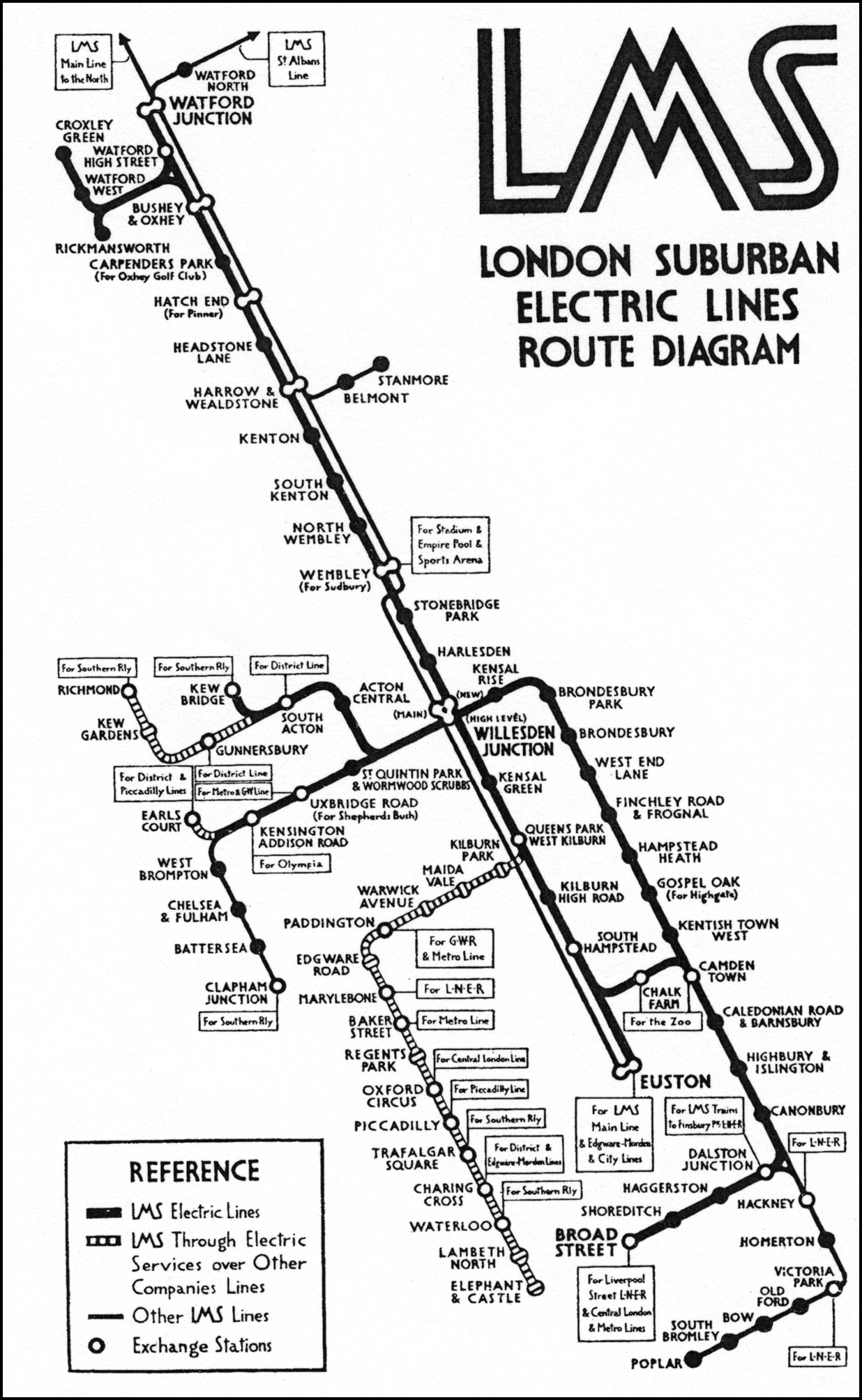
Turning to the lighter side of map design, I have always been intrigued by what-ifs. What if an unpublished sketch had been put into production? What if a classic design was still in use today? Sometimes I create something purely for artistic effect – what if Frank Lloyd Wright had designed
a map for the Chicago El? These flights of fancy all have one thing in common: getting the lettering
right is crucial.
Often, there is a suitable digital font available off-the-shelf. Railway companies were pioneers of corporate identity and it is not surprising that they chose (or even created) important typefaces to letter their maps. The London & North Eastern Railway famously adopted Gill Sans for their publicity. Less well-known, the operator of the S-Bahn network in Berlin was forced to adopt Drescher Grotesk owing to there being no copies of Futura available for use in East Germany post World War II.
If an off-the-shelf font is not available, sometimes there will be a close match. Lettering has always been difficult to copyright and popular typefaces attracted imitations. If a few letterforms (or glyphs) are not quite right then redesigned ones can be substituted to give the desired authentic effect. For example, lettering on the classic Viennese Stadtbahn maps seemed to have its basis in the German typeface Erbar but with various glyphs modified to tone down the quirkiness of the original. For my modern update of the map it was easy to take an off-the-shelf version of Erbar and substitute letters as needed.
Very occasionally, I might undertake a project for which there are no suitable off-the-shelf computer fonts available and then I research and create my own lettering. If I need to create an actual computer font then I use Type Tool, which has all the basic functionality necessary.
George Dow is one of the lesser known pioneers of schematic map design: predating Henry Beck, and
much more creative. Unfortunately, no known print examples of his splendid 1935 LMS London suburban
map are known to exist, only a monochrome image
from a contemporary railway magazine. This map
was one of my early attempts at a digital recreation (2009). Lines are fairly easy to re-draw as vector
graphics but hand-lettering presents a conundrum.
Hand lettering is inherently variable. I could have tried
to trace each individual letter to impersonate this but,
as I have argued elsewhere, this would look wrong in the context of the perfect vector-graphics railway lines and stations – every angle correct, every stroke width the
same, every station blob the same size. In any case, what
I was trying to do was show this marvellous design to the
modern world – people accustomed to high quality print reproduction. It is possible that
the quaintness of obsolete techniques and technology might distract from appreciating the underlying design. Therefore, I decided to analyse the letters themselves, identify the preferred way in which each was constructed, and turn these into computer font outlines.
This was a rather ambitious project for a first font. To impersonate all the lettering, I needed three different weights plus lower case letters. Fortunately, this hand lettering was definitely mono-stroke (all stroke widths identical within letters) and there was only one missing letter to guess, the Z. In the process I learnt a lot about
the optics of font design, and the delights of using font creation software to set up kerning pairs.
This is definitely a case in which the layout of the lines, at their jaunty angle, and the distinct of-its-time lettering, complement each other exactly. Unfortunately, too much so. I have experimented with Dow Sans in other contexts and it never looks quite right. Just right for this map, but out of place everywhere else. This is an intriguing demonstration of the lost art of hand lettering, adjusting the style perfectly to complement the exact context in which it is set.
I call the 1930s the Decade of Diagrams. All round the world, the ethos of Modernism was providing a foundation for maps to become schematised. Often, this corresponded with network modernisation, such as electrification, and this appears to be the driving force behind Copenhagen’s new suburban railways diagram that was introduced in 1934.
This map caught my eye not just because
it was an early schematisation. K. T. Seest,
chief architect for Danish State Railways
(DSB), had adopted the official London Underground Johnston lettering for general use by his employer, apparently without the knowledge of London Transport. A hand-drawn approximation was used on new suburban railways map.
The Jernbanemuseum (Danish State Railways Museum) kindly supplied me with a high resolution scan of the original reference lettering (above) and I faithfully traced the outlines in preparation for making a computer font using TypeTool (left).
Comparing this with Johnston’s original work, it was clear that the Seest lettering was not a direct
copy. No two letters were quite the same and many differences were more than could be accounted for
I took inspiration from Bauhaus methods, using
a grid and two standard curve-radii but, rather than creating stern-looking German lettering,
I wanted a more jaunty effect – reminiscent of
my own Curvy Maps. This was partly achieved by the larger curve radius being slightly too large to be strictly practical. I also created multiple versions so that the letters could be chosen contextually – look at A and M in Amsterdam (left). Comparing with Bauhaus lettering above, it is surprising how strict geometry can result in such different effects.